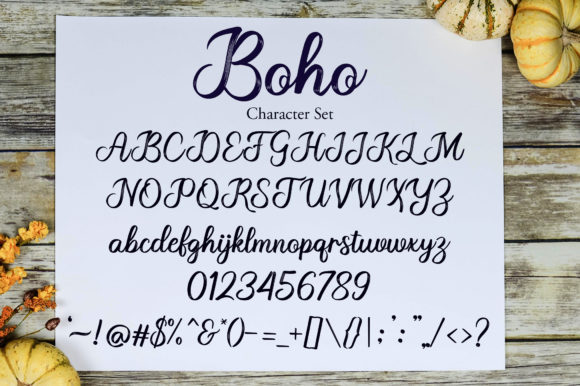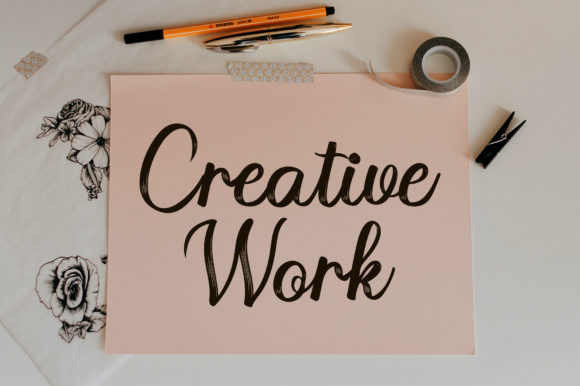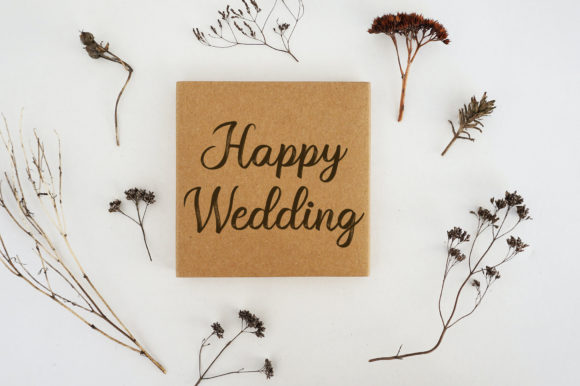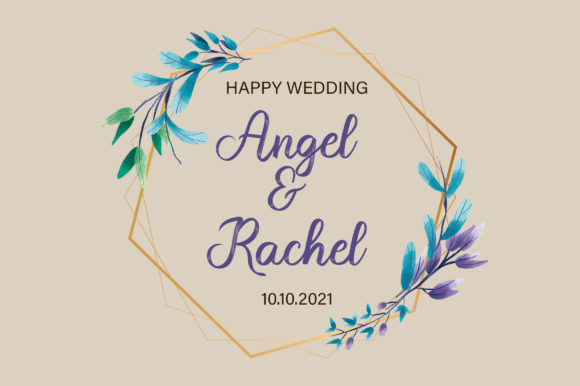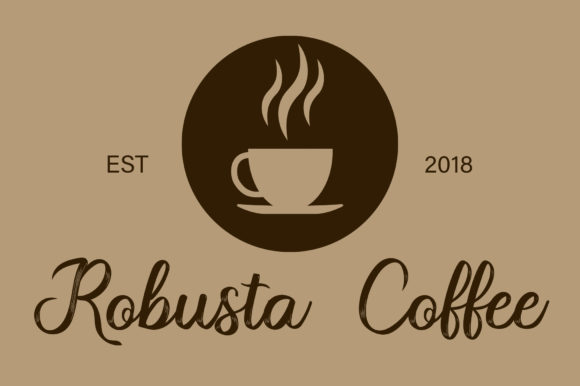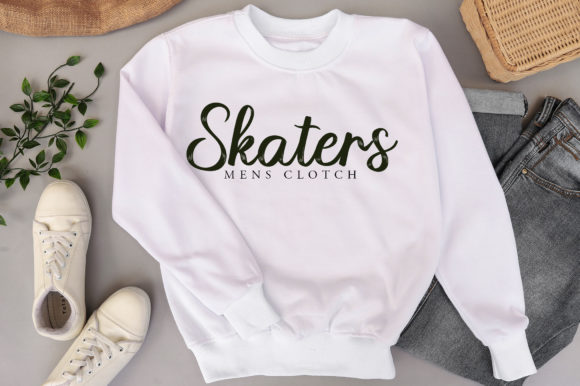
Remember that moment when you’re working on a design and you can’t quite put your finger on what’s missing? You’ve got the perfect color palette, the right imagery, but something’s just not coming together. That’s when you need a font that speaks to you, a font that feels like it was written just for your project. Enter the Boho Font, a beautiful handwritten font that’s sure to elevate your designs to the next level.
This stunning font is not just a pretty face – it’s a masterfully crafted tool designed to bring a touch of elegance and sophistication to your work. With its classy calligraphic influences and contemporary feel, the Boho Font is the perfect choice for designers who want to add a little extra something special to their projects. Whether you’re working on a wedding invitation, a brand identity, or a social media campaign, the Boho Font is sure to bring a touch of magic to your designs.
Key Features of Boho Font
- Font Family: Boho Font is a unique and elegant script font family, designed to evoke a bohemian or free-spirited feel.
- Character Count: The font family includes a wide range of characters, including uppercase and lowercase letters, numbers, punctuation, and special characters.
- Unique Characteristics: Boho Font features a flowing, handwritten style with subtle imperfections and variations, giving it a natural, organic feel.
Boho Font Review
Boho Font is a beautiful, handcrafted font that can add a unique touch to your designs. ✨ Its eclectic mix of different styles and textures makes it perfect for creating a bohemian vibe in your branding, websites, or marketing materials. ✨ The font comes in a range of weights, from light to bold, giving you plenty of options for customization.
Here are some of the things I love about Boho Font:
- Unique and stylish design that adds a personal touch to your projects
- Wide range of weights and styles to suit different design needs
- Perfect for creating a bohemian or vintage vibe in your designs
- May not be suitable for formal or corporate designs
- Can be a bit overwhelming if used too liberally
- May not be compatible with all operating systems or devices
Overall, I think Boho Font is a great addition to any designer’s toolkit. While it may have some limitations, its unique style and customization options make it a valuable resource for creating eye-catching designs.
Tips for Getting the Most Out of Boho Font
For a more authentic Boho look, pair the font with distressed textures and watercolor effects. Experiment with different font sizes and colors to create visual interest. Use Boho Font for headings and titles to add a touch of whimsy and elegance.
Boho Font is perfect for:
- Travel and adventure branding
- Wellness and spirituality marketing
- Artistic and creative projects